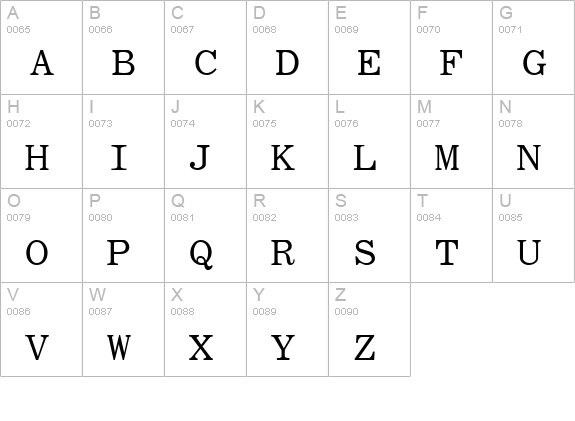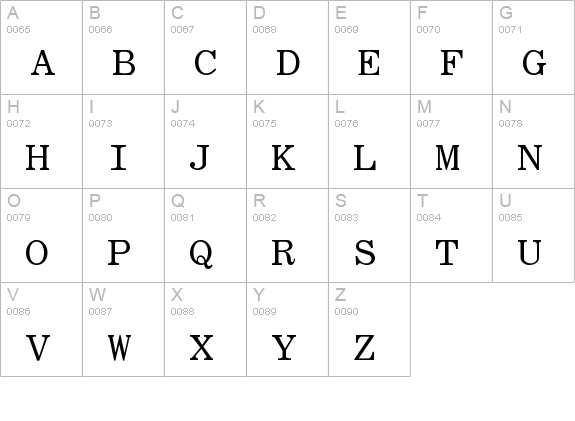
RomanFixedWidth Font Details
RomanFixedWidth font is a classic and sophisticated typeface that exudes elegance and professionalism. With its clean lines and timeless design, this font is perfect for a wide range of projects, from traditional print materials to modern digital designs. One of the standout features of RomanFixedWidth font is its fixed width, which ensures that each character takes up the same amount of space. This makes it ideal for creating tables, code snippets, and any other project that requires precise alignment. Best of all, RomanFixedWidth font is available for free download at FontsMarket.com. Whether you're a designer looking to add a touch of elegance to your work or a developer in need of a reliable fixed-width font, RomanFixedWidth is sure to impress. Download it today and elevate your projects with this timeless typeface.